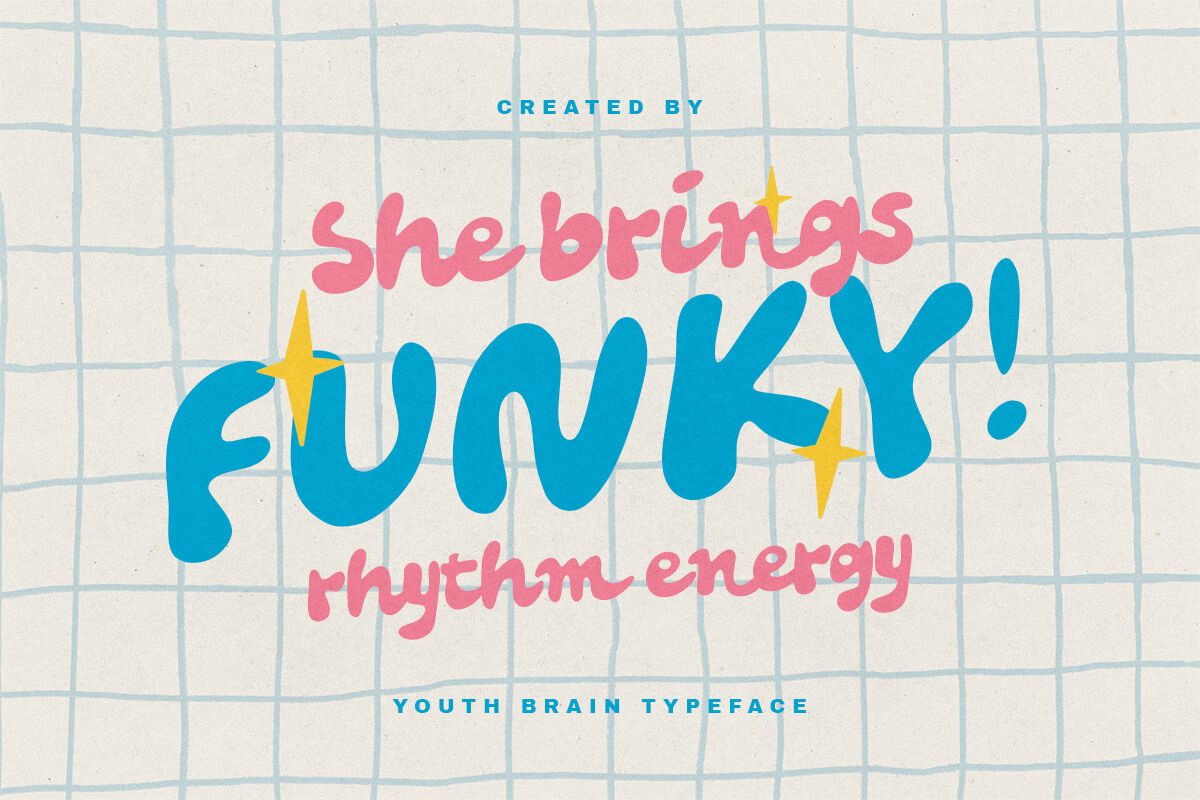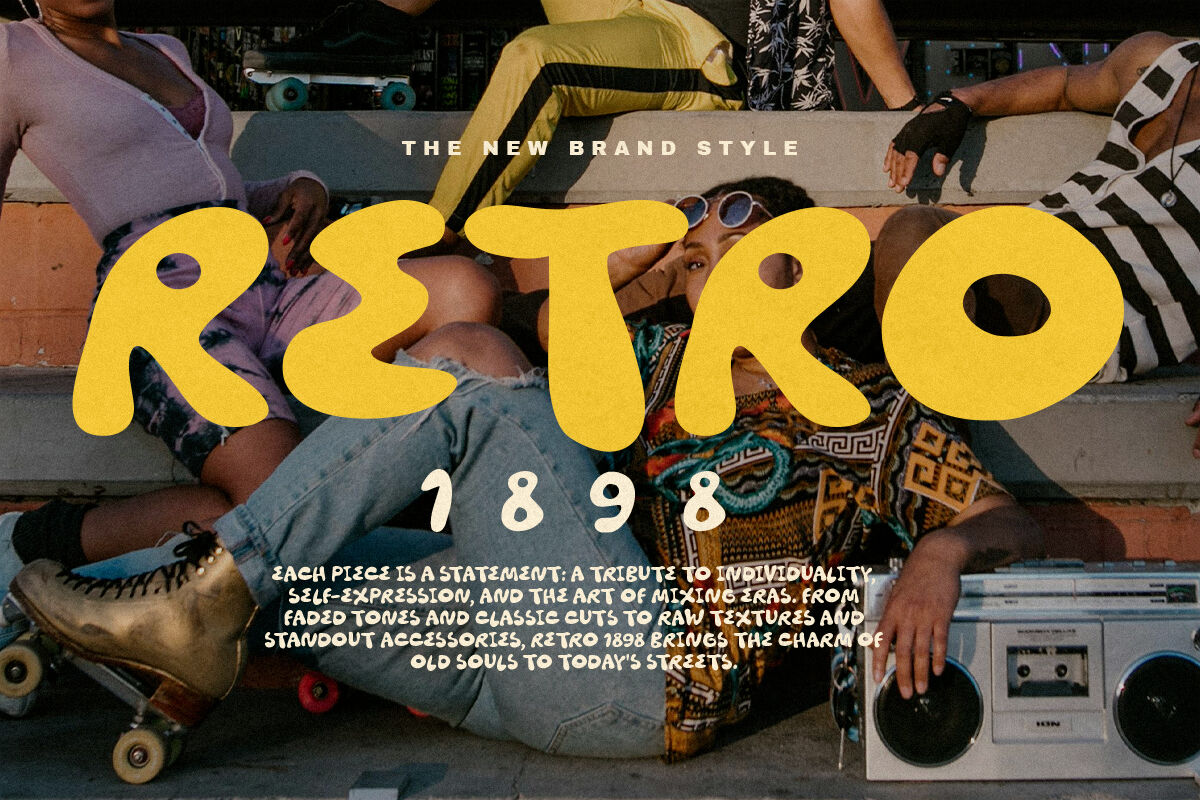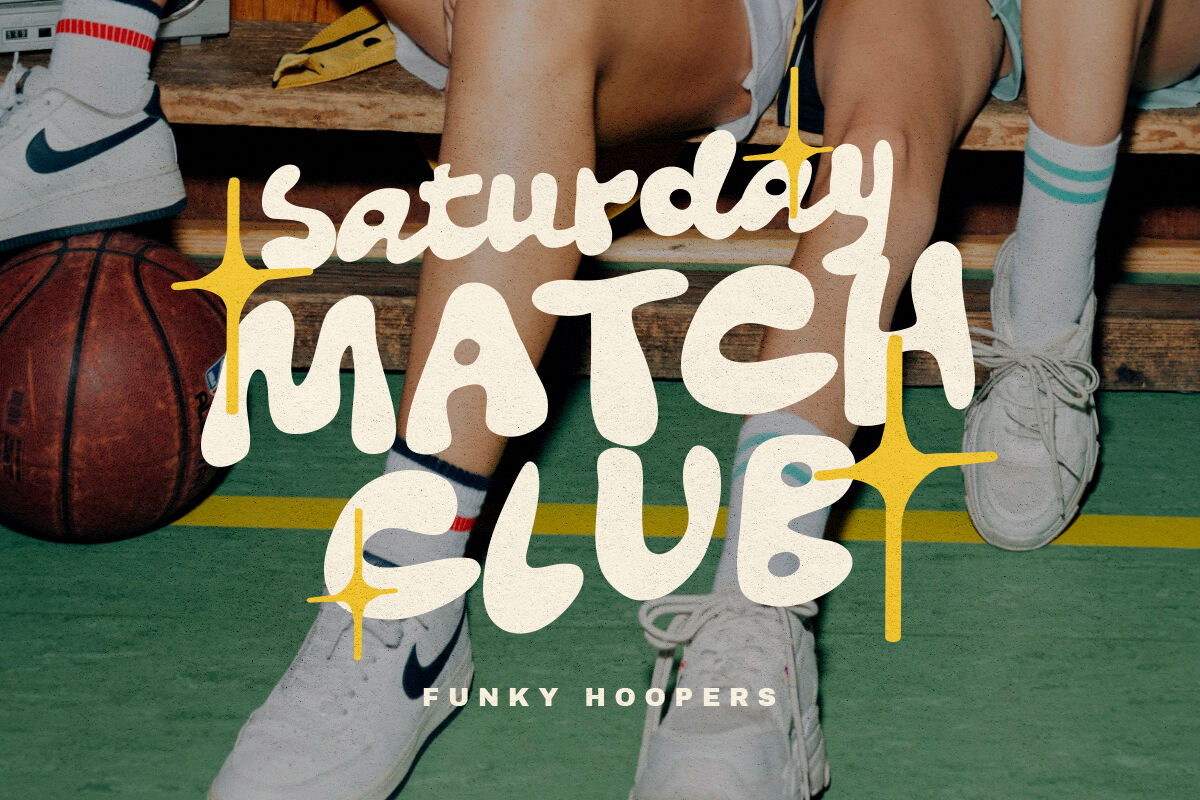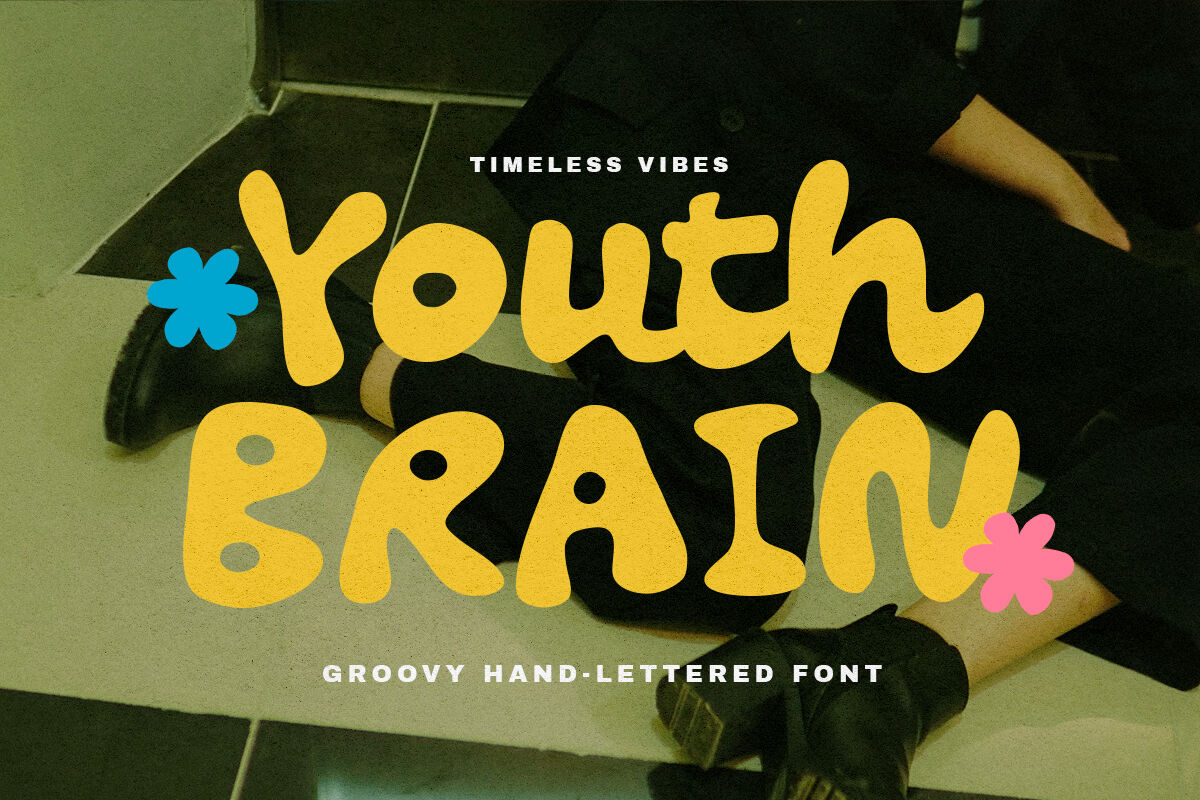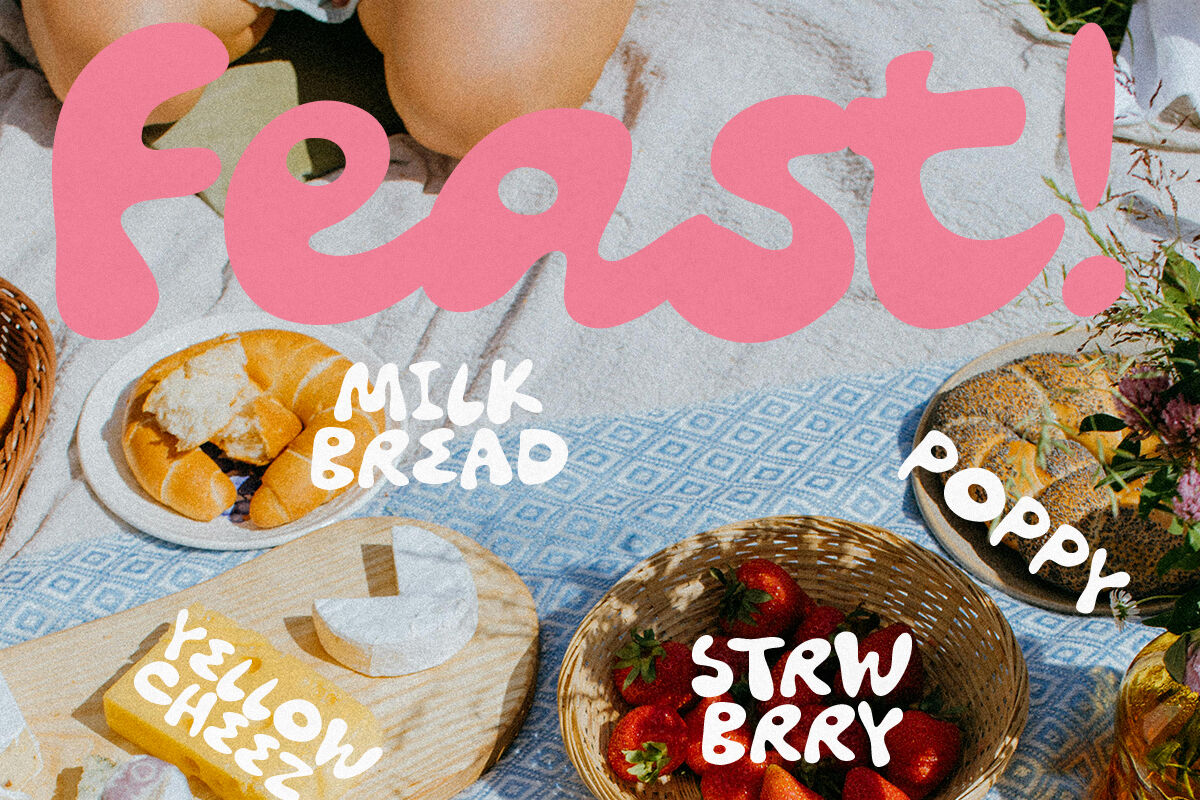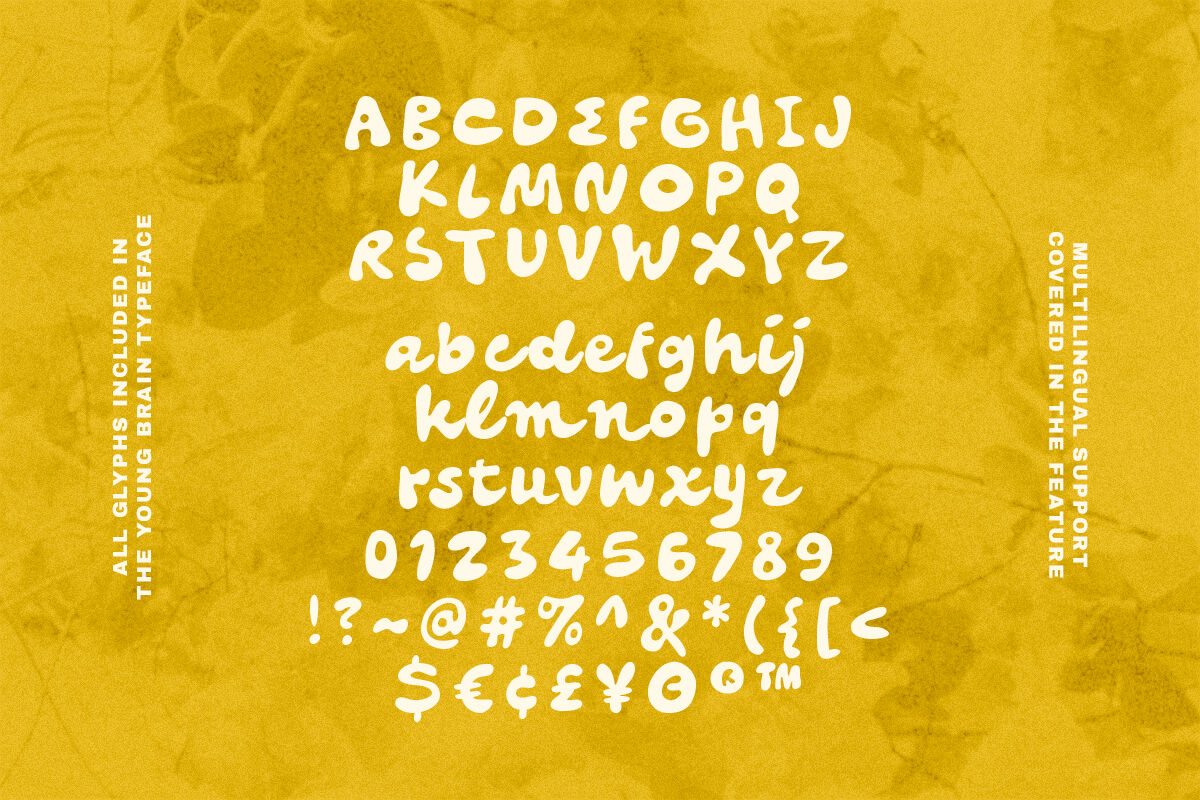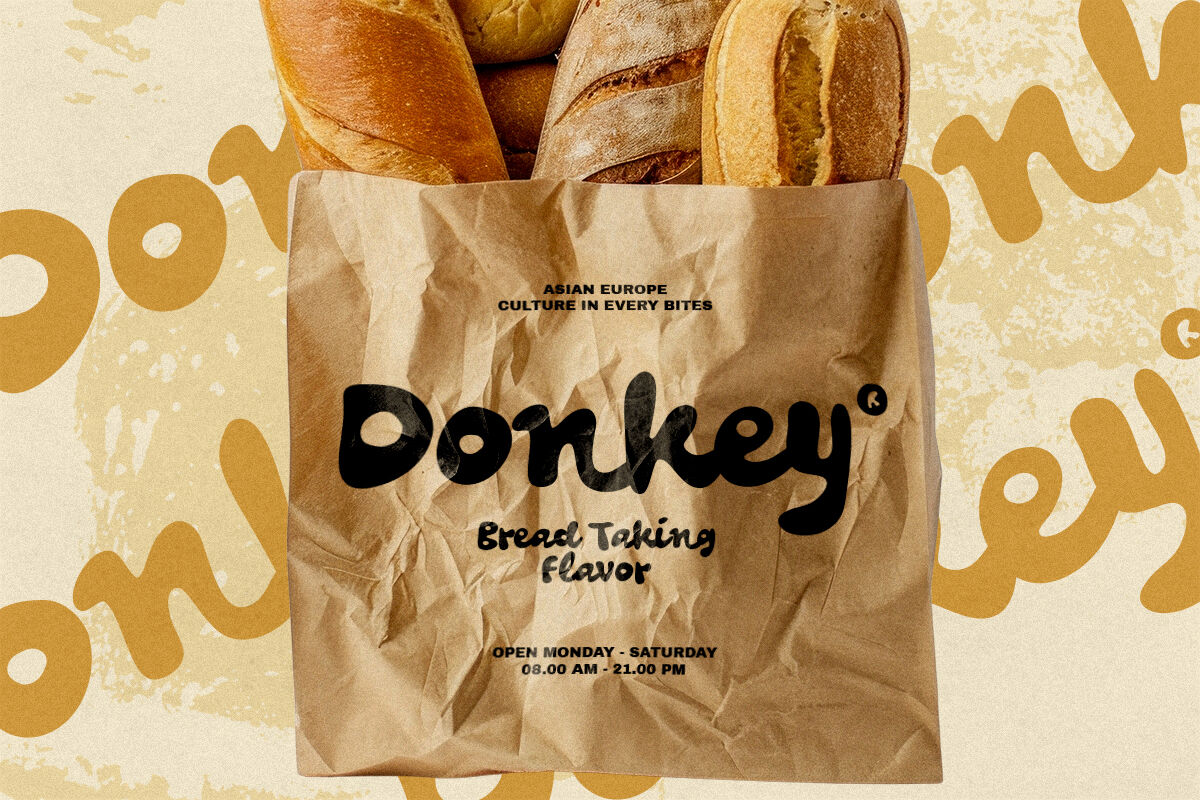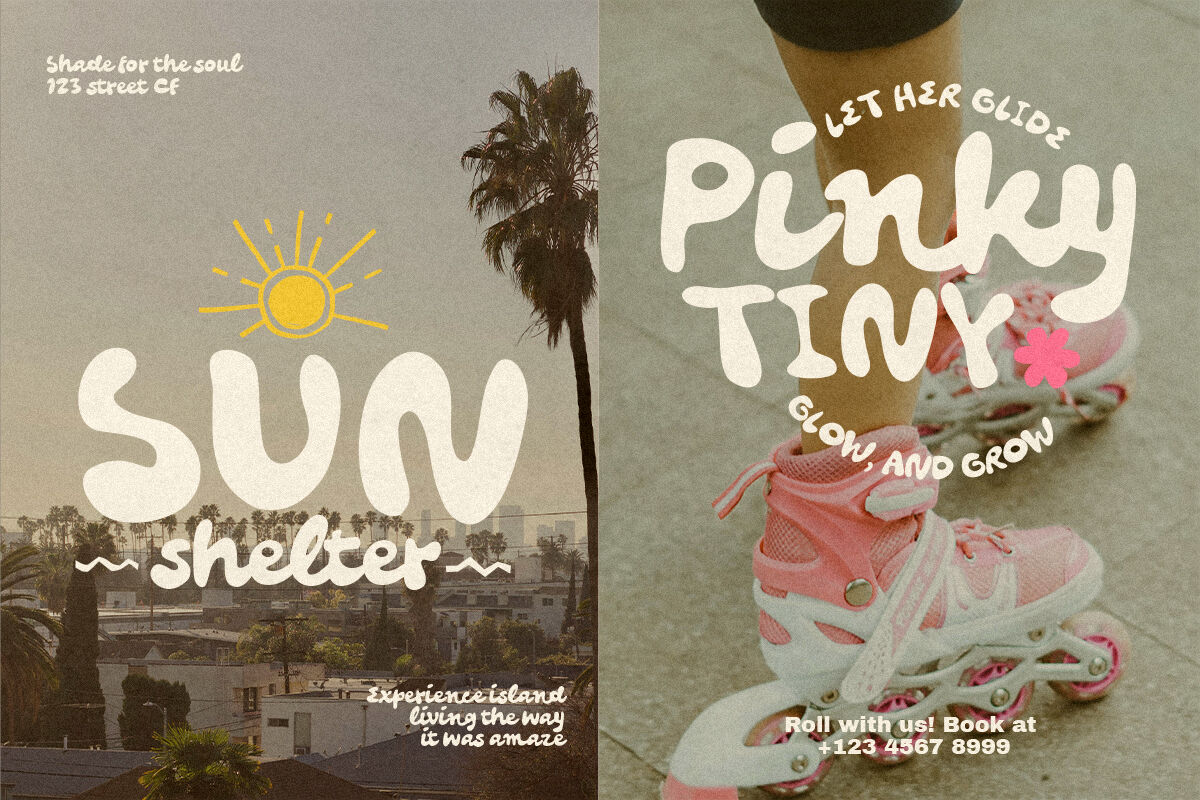
Youth Brain - Groovy Bold Font
Youth Brain is a hand-lettered font with groovy vibes. You can mix match the uppercase and lowercase to make it like a font duo, uppercase as the sans and the lowercase as the script. You can use this font for any purposes such as poster, branding, quotes, and even logotype. This font also support multi language.